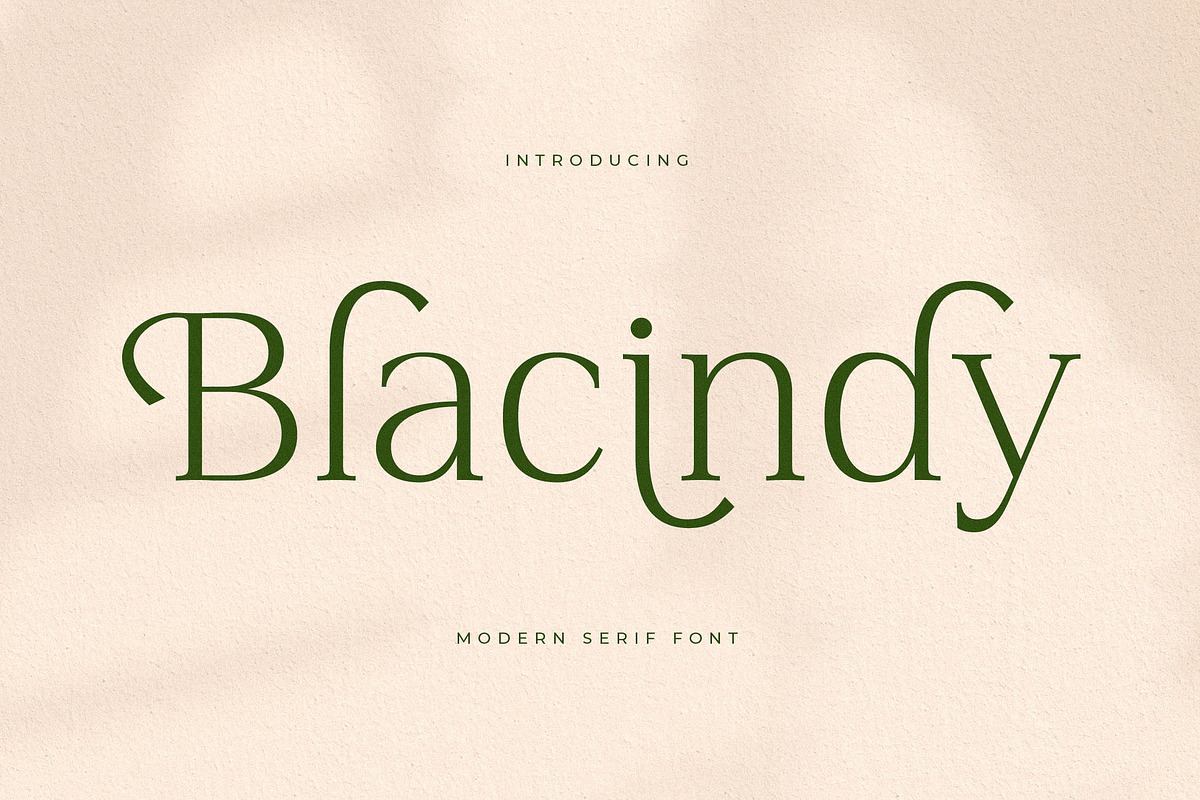
Blacindy Modern Serif Font Free Download is a sleek and sophisticated typeface that blends timeless serif elegance with modern design. With its refined serifs, clean lines, and elegant proportions, Blacindy is perfect for luxury branding, editorial layouts, high-end packaging, and upscale websites.
This font’s contemporary feel combined with classic serif elements makes it ideal for designs that need to convey professionalism, style, and quality. Whether you're creating a chic logo, a refined brochure, or a modern website interface, Blacindy brings a polished, high-fashion aesthetic to your typography.
Designers love Blacindy for its versatility and upscale appeal across both print and digital platforms. Ready to elevate your design with a modern twist on a classic? Download Blacindy Modern Serif Font Free Download and bring sophistication and elegance to your typography.